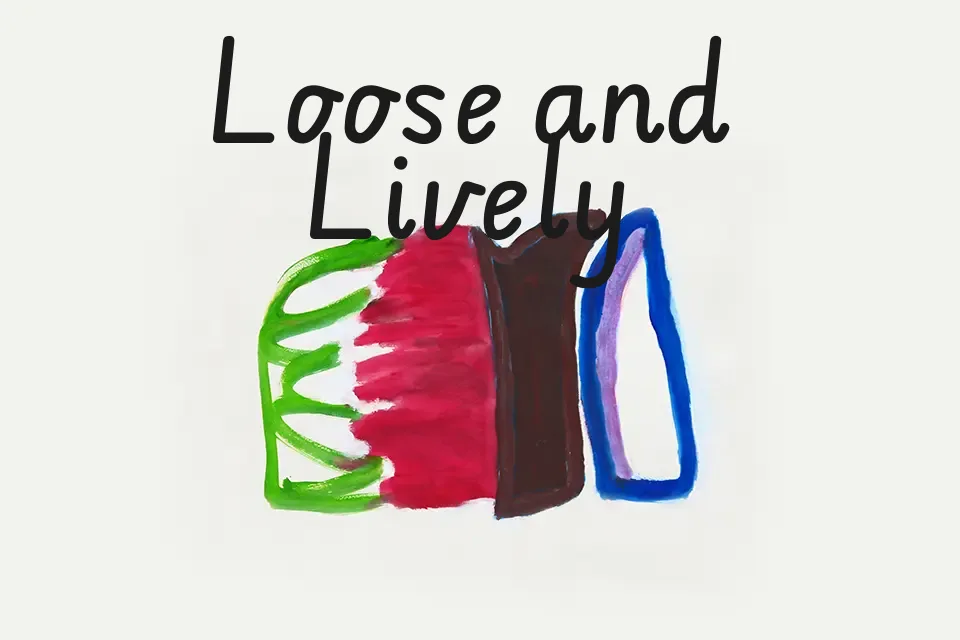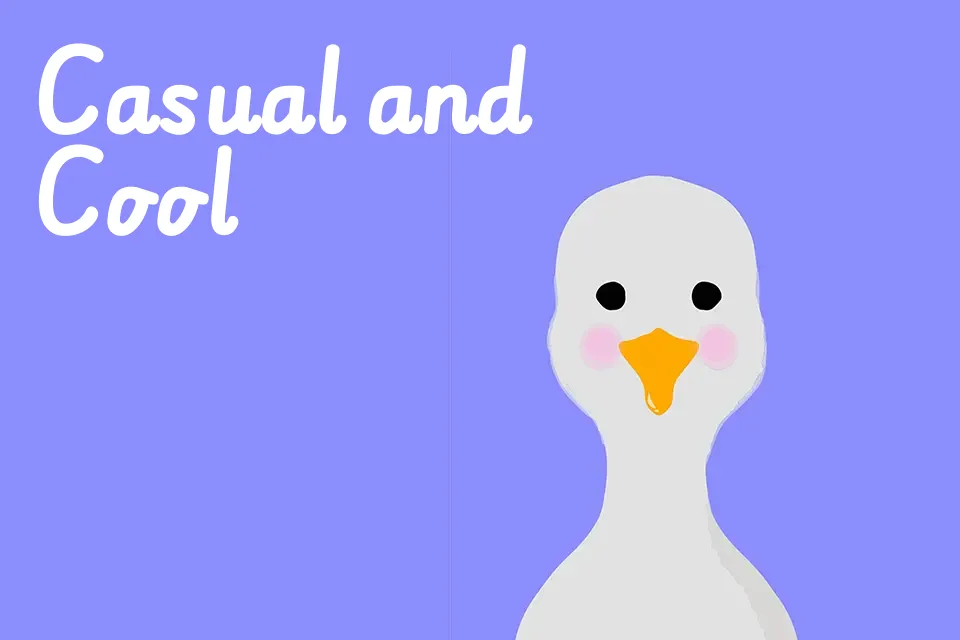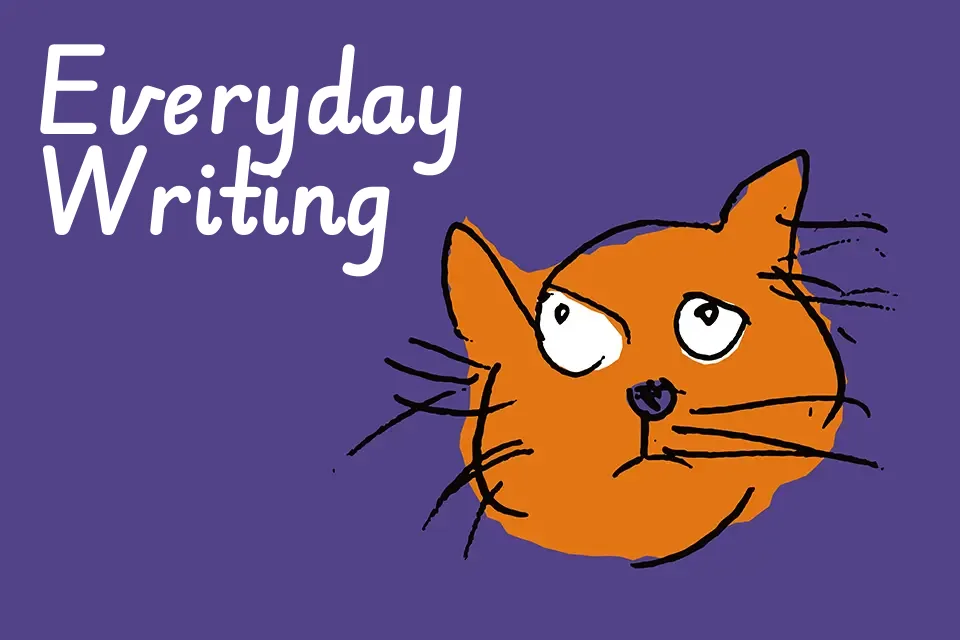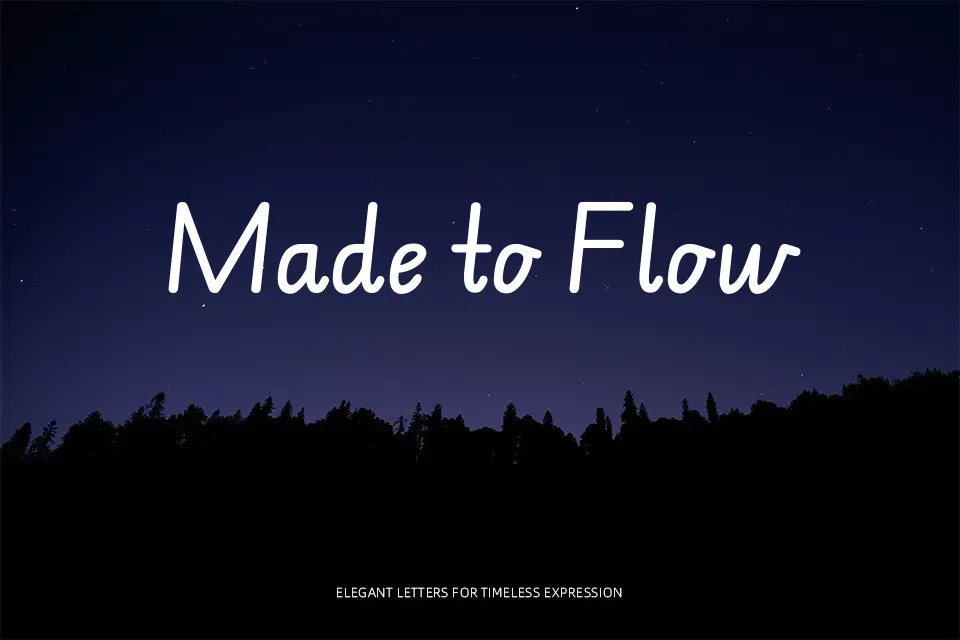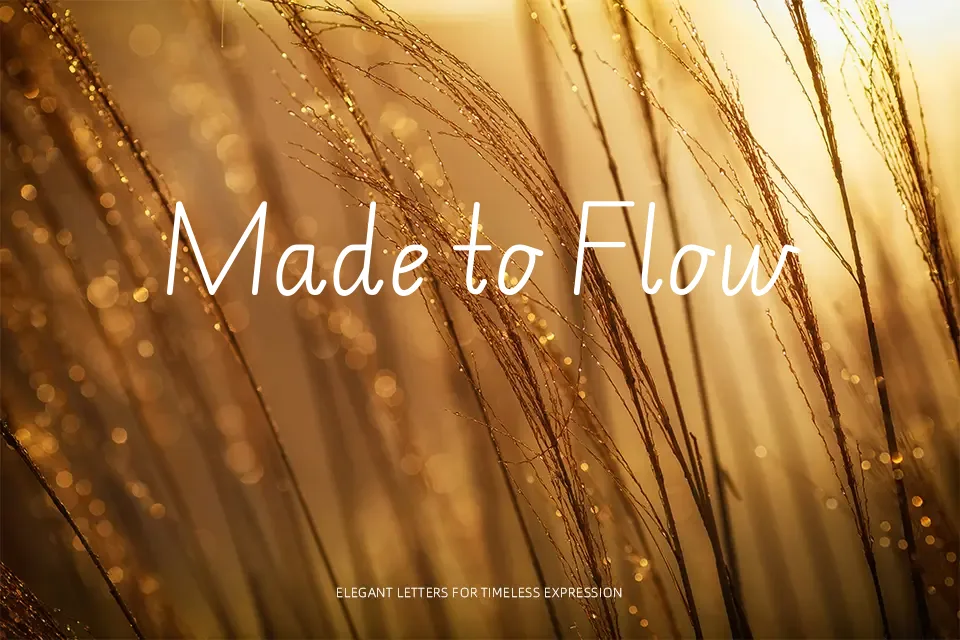
Edu NSW ACT Hand Pre Font
Designed by Tina Anderson, Corey Anderson
Edu NSW ACT Hand Pre belongs to the AU School Handwriting family, offering neat, semi-monoline strokes, moderate weight, and open counters that echo how children are taught to write in NSW and the ACT. Letters sit comfortably on the line with even spacing, so words remain legible at both worksheet and poster sizes. The overall character feels informal and classroom-ready rather than decorative, which works well for handwriting practice sheets, early literacy materials, and school-branded printouts that should still feel friendly. It is less convincing for high-end branding or tightly spaced UI labels, where a more polished sans serif or script will usually look more considered.
handwriting practice worksheets
primary school posters and signage
kids learning apps and interfaces
dense body text in books
luxury or corporate branding
tiny UI labels or system text
Perfect for headline, kids, and poster, with a calm and handwritten style.